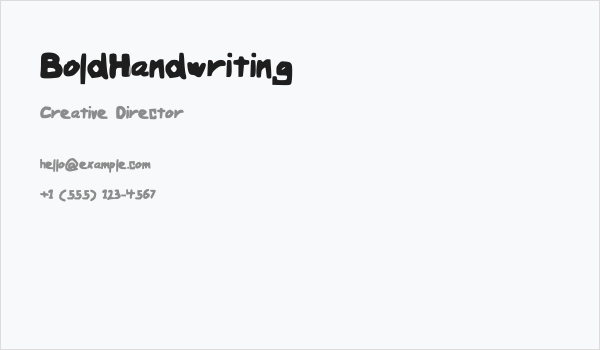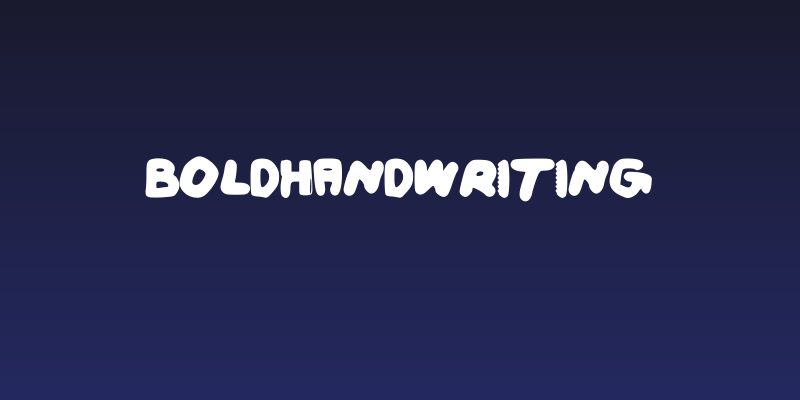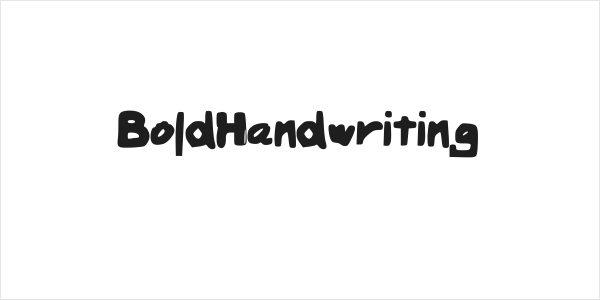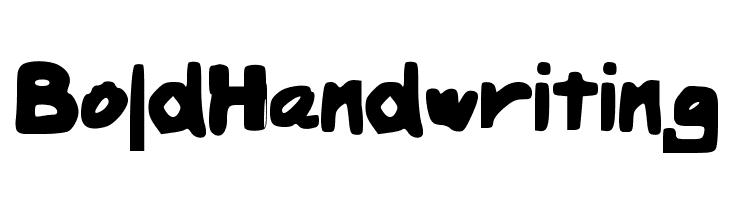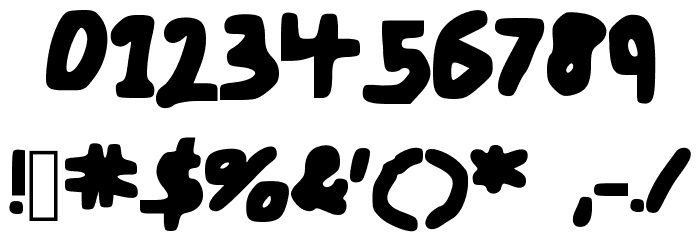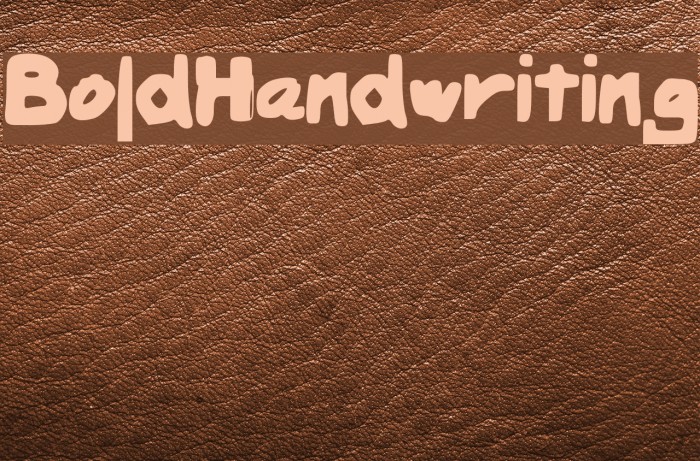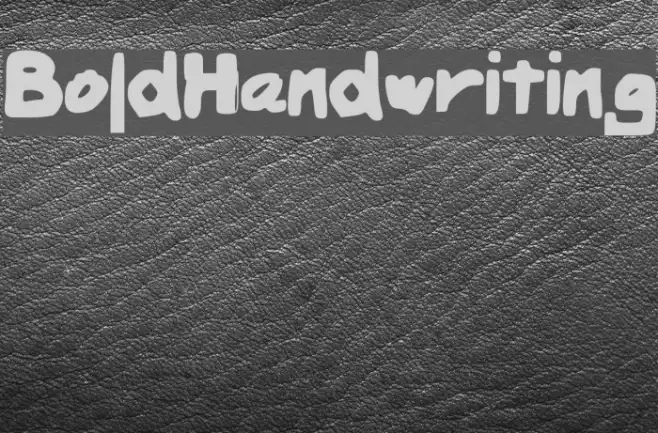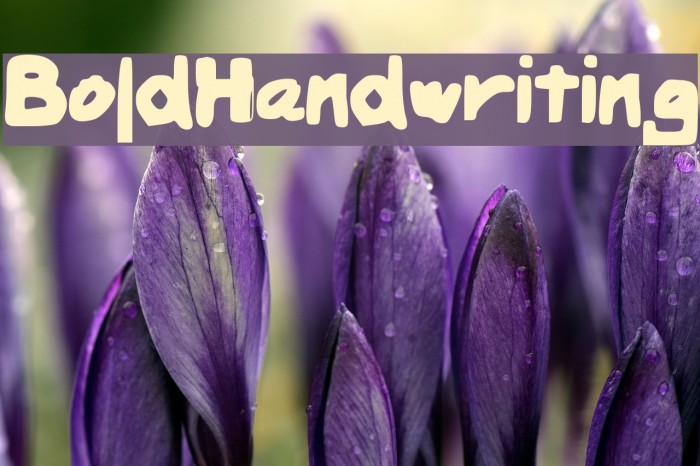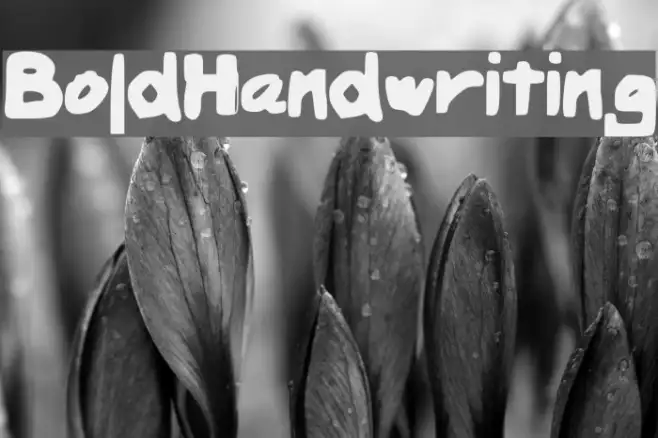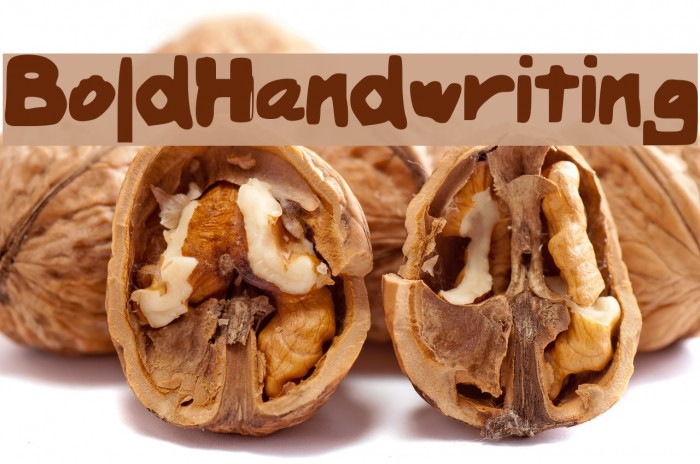
BoldHandwriting Font
BoldHandwriting Description
This font exudes a bold, expressive style reminiscent of handwritten notes with a playful twist. The characters are thick and rounded, giving them a friendly and approachable appearance. Each letter maintains a consistent weight, contributing to a cohesive look across the alphabet. The uppercase and lowercase letters are distinct yet harmonize well together, while the numerals and special characters follow the same bold, rounded design. This font is perfect for projects that require a personal touch, such as invitations, greeting cards, or playful branding materials.
| Overall Style | Playful, Expressive |
| Proposed Projects | Ideal for invitations, greeting cards, playful branding, and personal projects. |